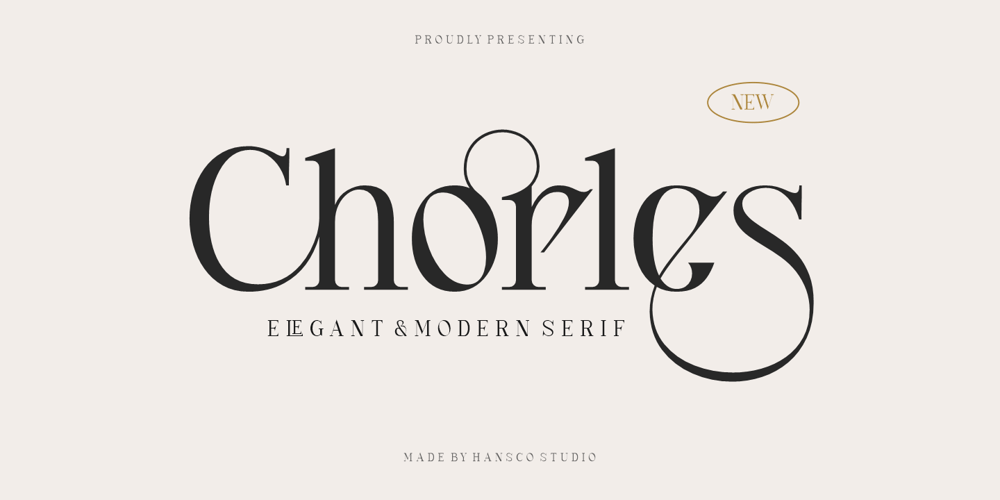
Chorles Elegant
Chorles Elegant font
Chorles Elegant Font Family was designed by Burhan Afif and published by HansCo. Chorles Elegant contains 1 styles and family package options. Chorles Serif Font is a classy display serif font with unique look that is perfect for multipurpose projects. I made Chorles Serif Font inspired by the concept of romantic vibes and made it into a modern yet luxury style. This font is also looks elegant and will fit well in any design and very recommended for logo, crafts, posters, books, branding, quotes, print templates, packaging, invitations, product labels, advertising, wedding project and more. This typeface comes in uppercase, lowercase, with punctuation, symbols, numerals, ligature and stylistic alternates.